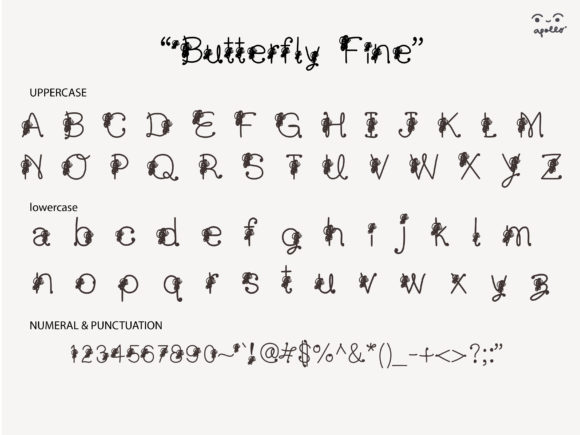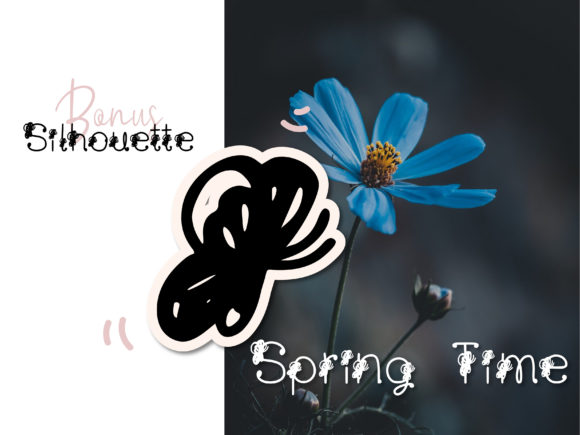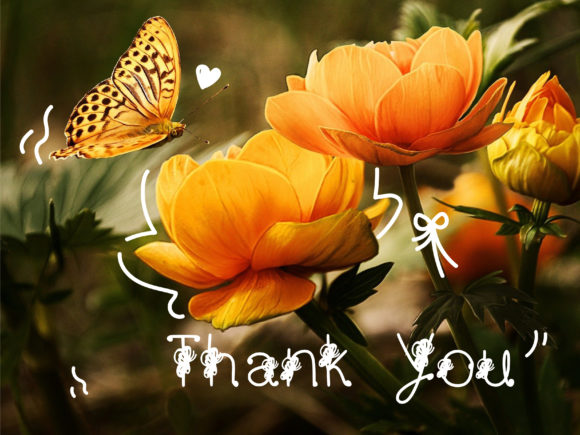
About Butterfly Fine Font
The Butterfly Fine is a gorgeous script font, featuring a hand-drawn butterfly on each character.
Fall for its ravishing style and use it to create lovely wedding invitations, beautiful stationary art, eye-catching social media posts, and much more!Â